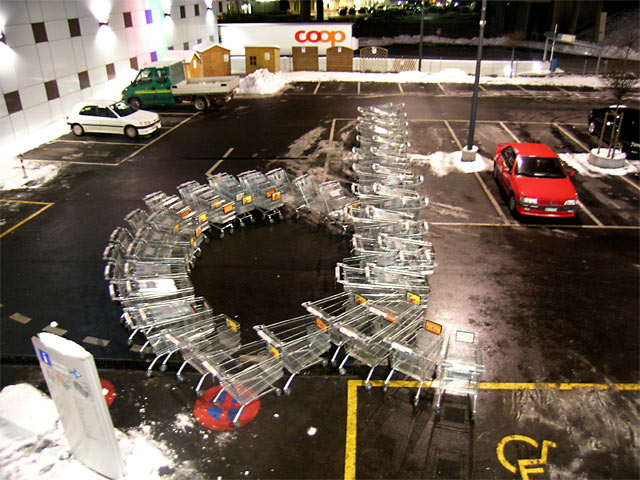
Last night we did a real size test on the car park. The result was pretty good but we want to modify a couple of things to improve the project. The x height has to be lowered and we have to concentrate on the letter design today, so that tonight we have a good plan to start constructing the whole word. After having read the comments on the website, we started thinking about the relationship between the word, the place and the typeface design because we have to find a balance between these elements. It's true that it would be a shame just
doing a default typeface. By the way the temperature last night was -8° celsius and they've announced -16° and wind tonight, so wish us good luck... aight!
Today we found THE word: Liberté (freedom). Books are the synonym medium of the freedom of mind. At the moment we're fine tuning our logotype-like word image. We want to do a clip. The ambiance will be in black and white with a lot of contrasts. We placed the lights down for more shadows. We're going to film very close the floor to get abstract start - in order to understand the word at the end. Tomorrow will be an other lovely day.